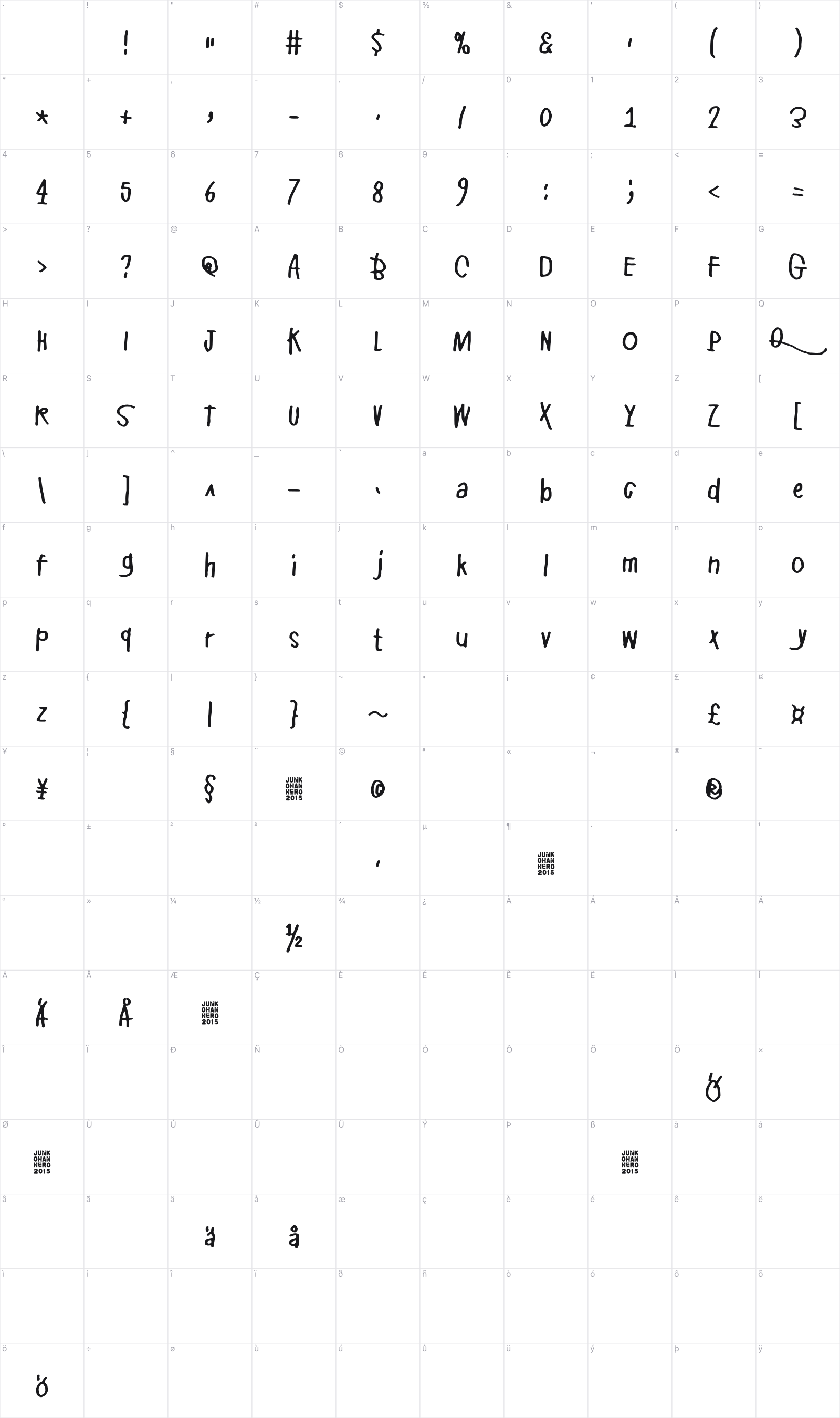
Pikku Julmuri
Pikku Julmuri is a bold, chunky handwritten face from junkohanhero that feels like someone went at a piece of paper with an oversized marker and zero hesitation. The letterforms are uneven and playful in a way that reads as genuinely childlike rather than calculated, with thick strokes and wobbly baselines adding to the charm. Best used for headlines, posters, and packaging where a loose, quirky personality needs to come through loud and clear.